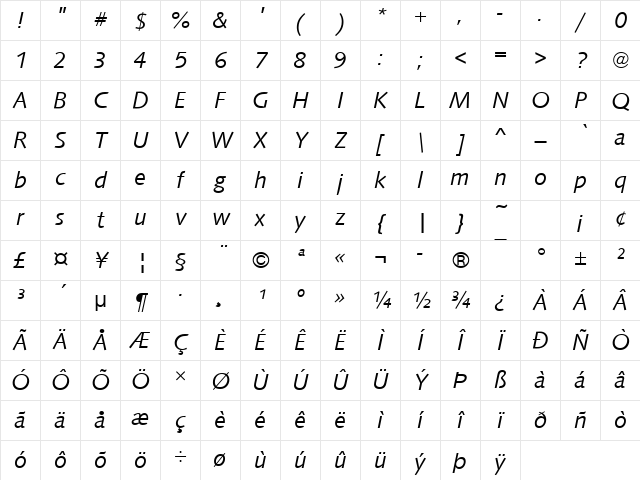
URWSamarkandT Italic
URWSamarkandT Family
Design Context for URWSamarkandT
URWSamarkandT is a composed and adaptable typeface that performs quietly and consistently across a wide range of design contexts. The slanted form adds forward momentum and visual energy.
Pro Tip: Use URWSamarkandT for emphasis, pull quotes, and subheadings where its slanted energy can add rhythm to the layout.